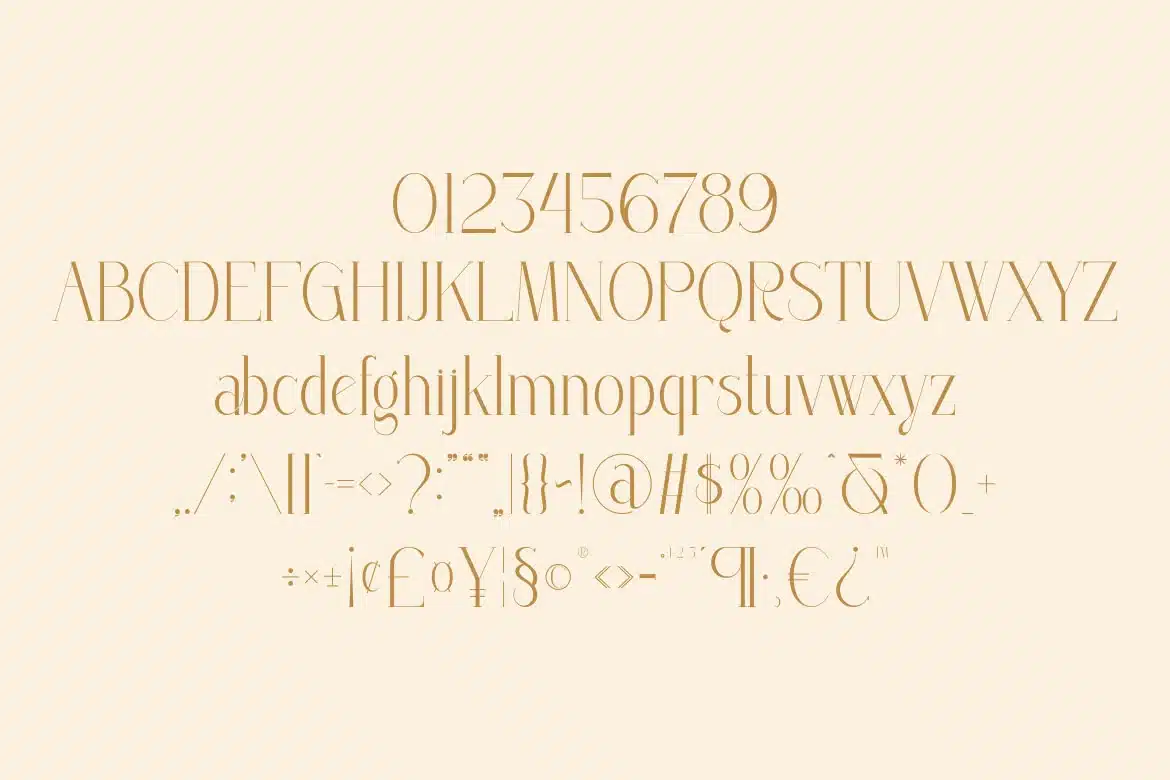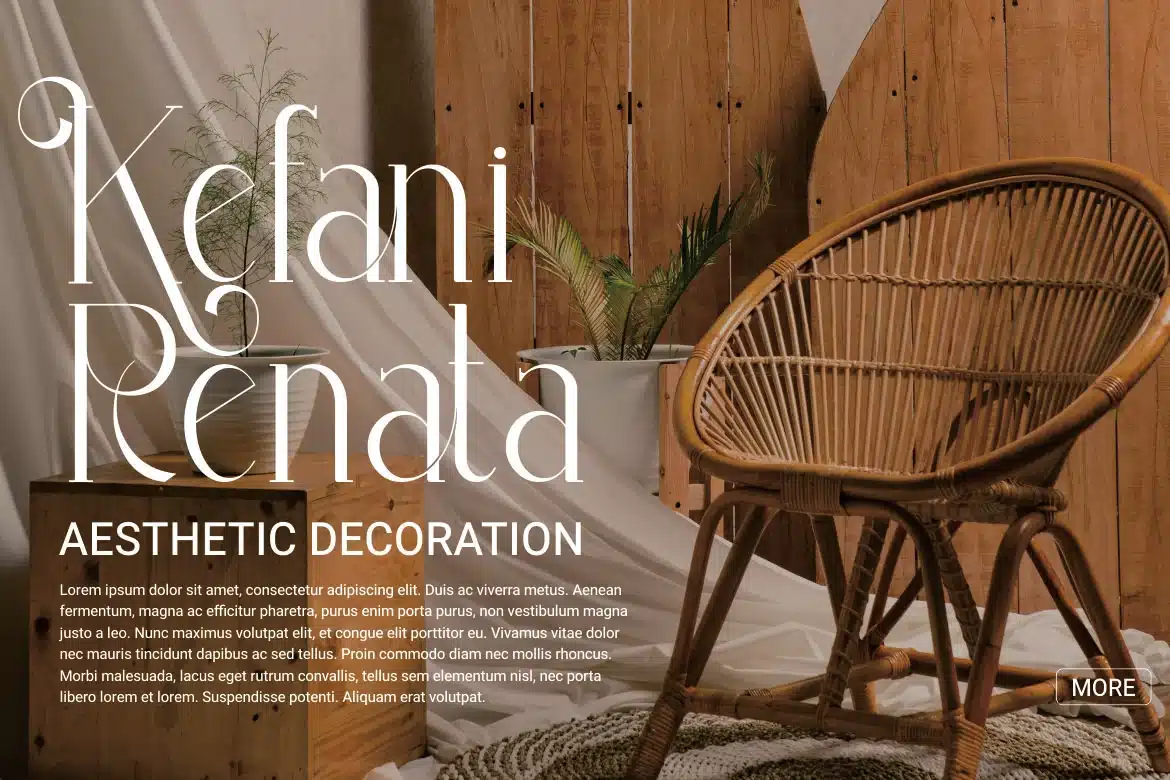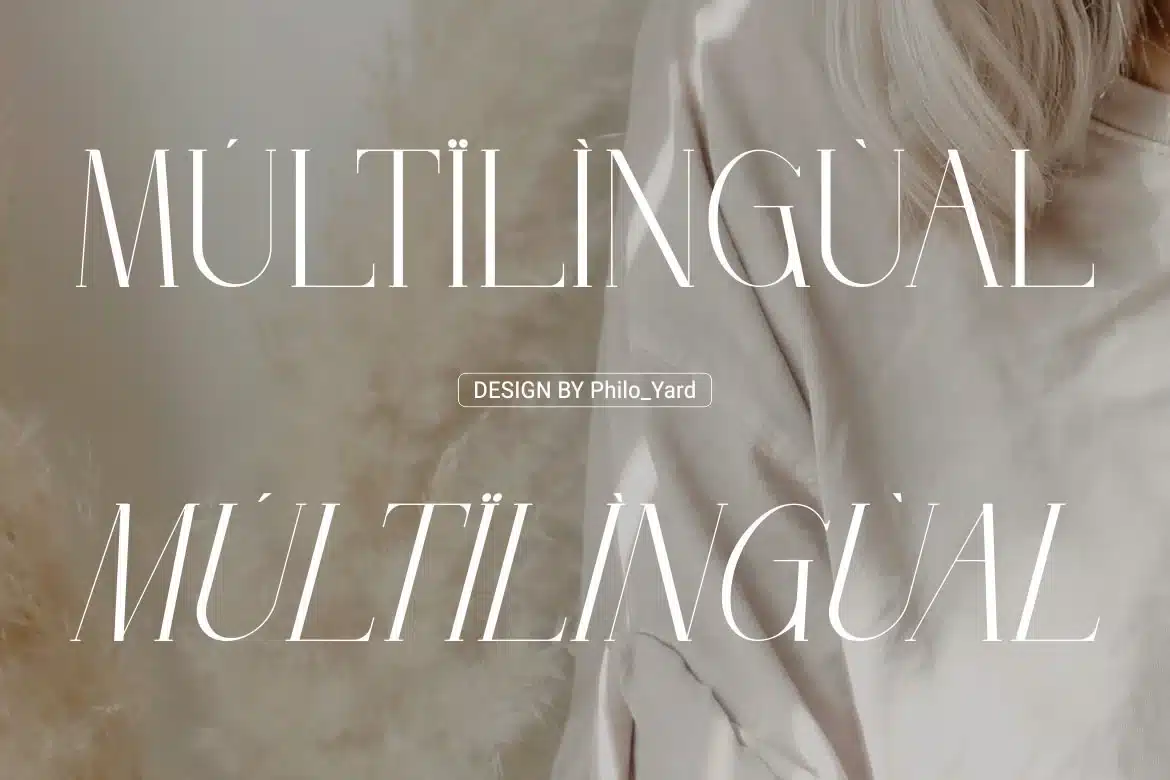
Arshiya Elegant Serif Font
Introducing Arshiya Elegant Serif Font is a modern serif typeface crafted for timeless elegance and visual storytelling. Its clean contrast and subtle ligatures make it ideal for branding, fashion editorials, and luxury packaging. Designed with cinematic grace, this font evokes sophistication and aesthetic harmony in every composition.
. Uppercase & Lowercase
. Alternatives & Ligatures
. Numbers & Punctuation
. Multilingual Support
Perfect For: Luxury branding, editorial headlines, packaging, and logo design.